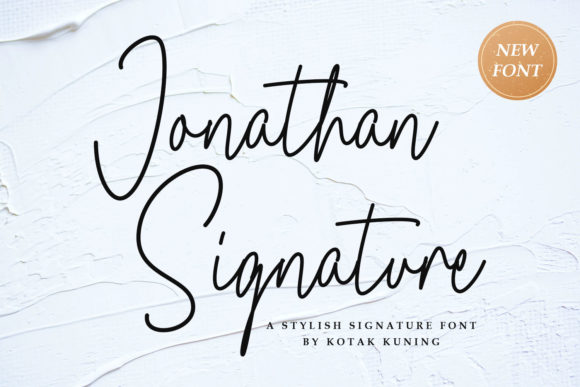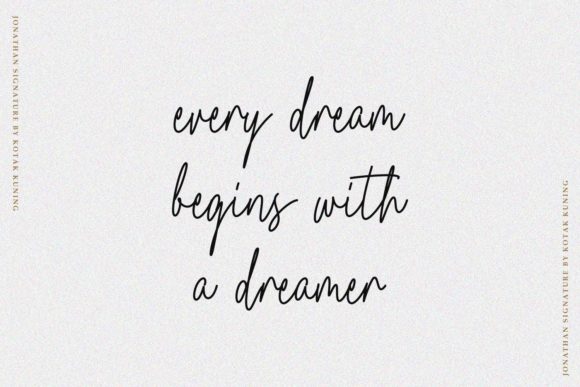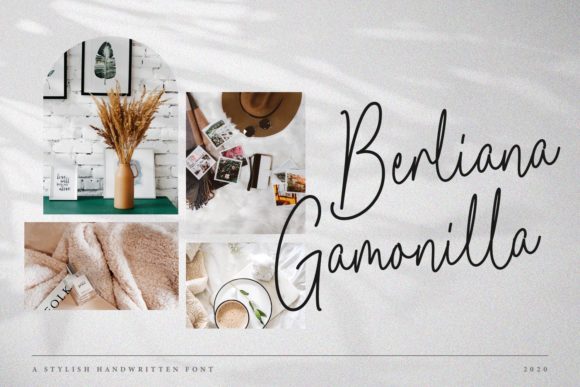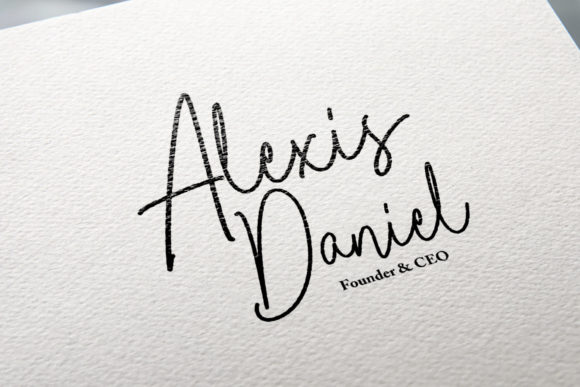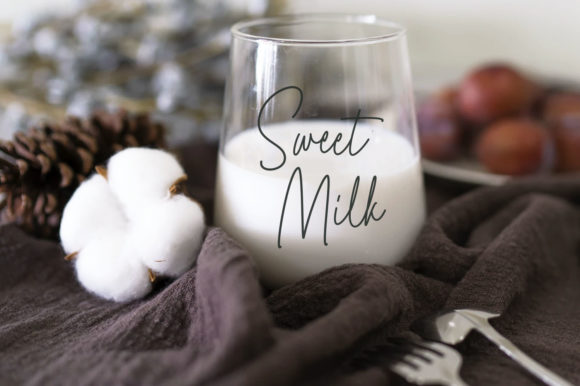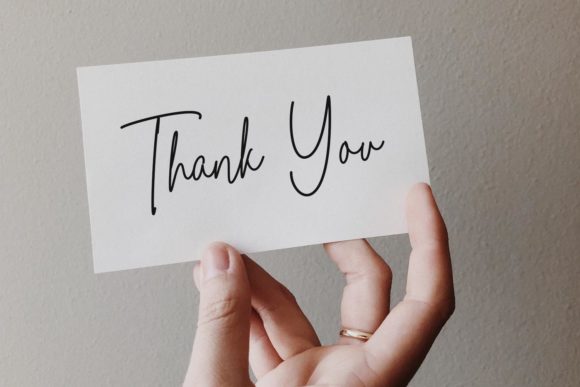
Jonathan Font
About Jonathan Font
Jonathan is a friendly handwritten font. Clean and simple, this font is the perfect fit for all of your logos, branding, social media, and crafty DIY projects.